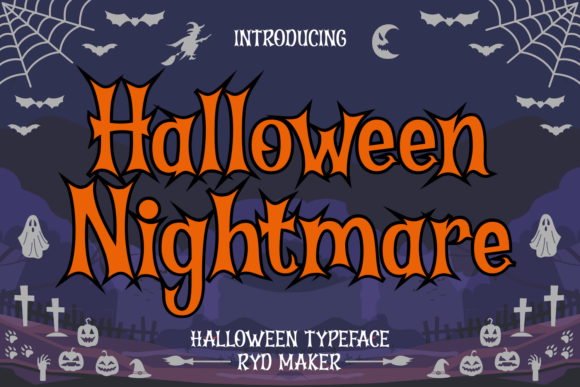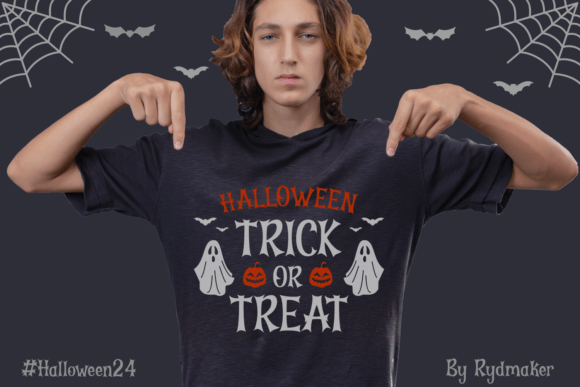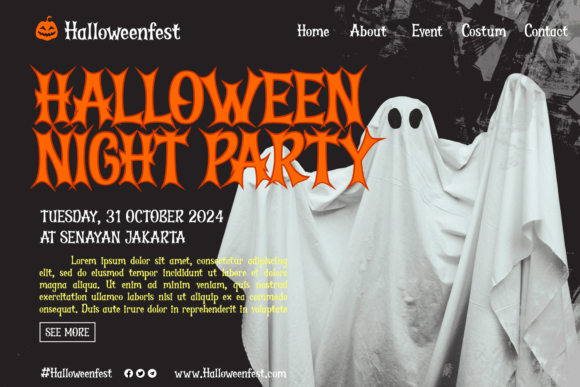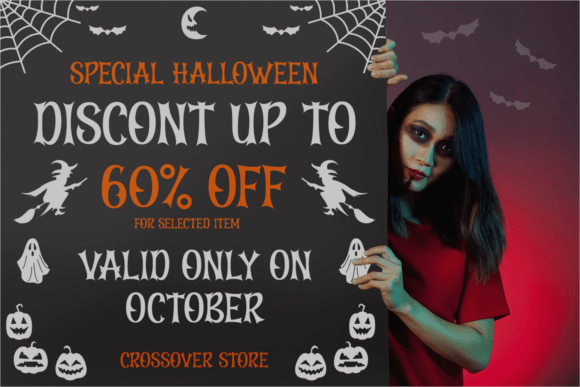
Halloween Nightmare Font
About the Halloween Nightmare Font
Introducing the Halloween Nightmare Font, a beautifully crafted typeface designed to elevate your creative projects. Halloween Nightmare is an incredibly unique display font. Masterfully designed to become a true favorite, this font has the potential to bring each of your
creative ideas to the highest level!
Its bold, slightly jagged forms make it ideal for Halloween-themed projects, posters, or short impactful headlines. It excels in creating a spooky yet playful atmosphere, perfect for branding related to horror, fantasy, or gothic aesthetics. Avoid using it for body text or lengthy passages; its high contrast and unique letterforms are not suited for extended readability.
Pairing it with a clean sans-serif like Open Sans for body copy provides excellent contrast and readability. For a more sophisticated look, consider pairing it with a classic serif such as Garamond or a slightly more modern serif like Lora. These pairings balance the Halloween Nightmare font’s dramatic personality with a touch of elegance or neutrality.
The overall personality is bold, dramatic, and slightly playful, making it unsuitable for projects requiring a refined or minimalist approach. It thrives in contexts where a strong visual impact is desired, conveying a sense of fun yet slightly unsettling energy.